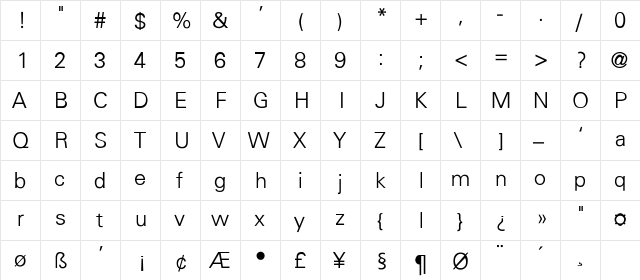
Univers-Light-Light Regular Font Preview
Univers-Light-Light Regular
Design Context for Univers-Light-Light Typeface
Univers-Light-Light offers clean, dependable letterforms without strong stylistic allegiance, making it a practical choice for designers who need flexibility. Its slender proportions lend an understated elegance to any composition.